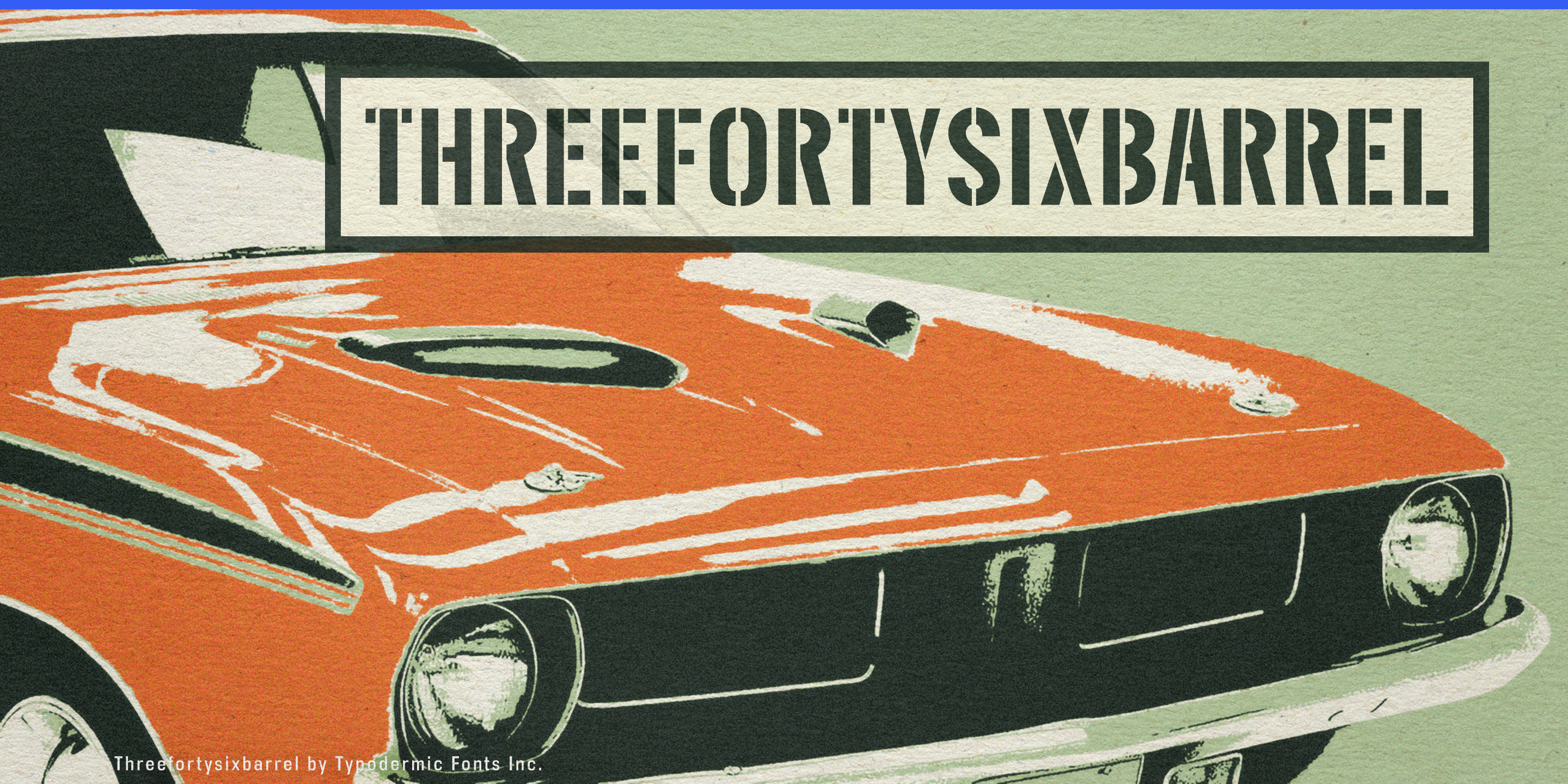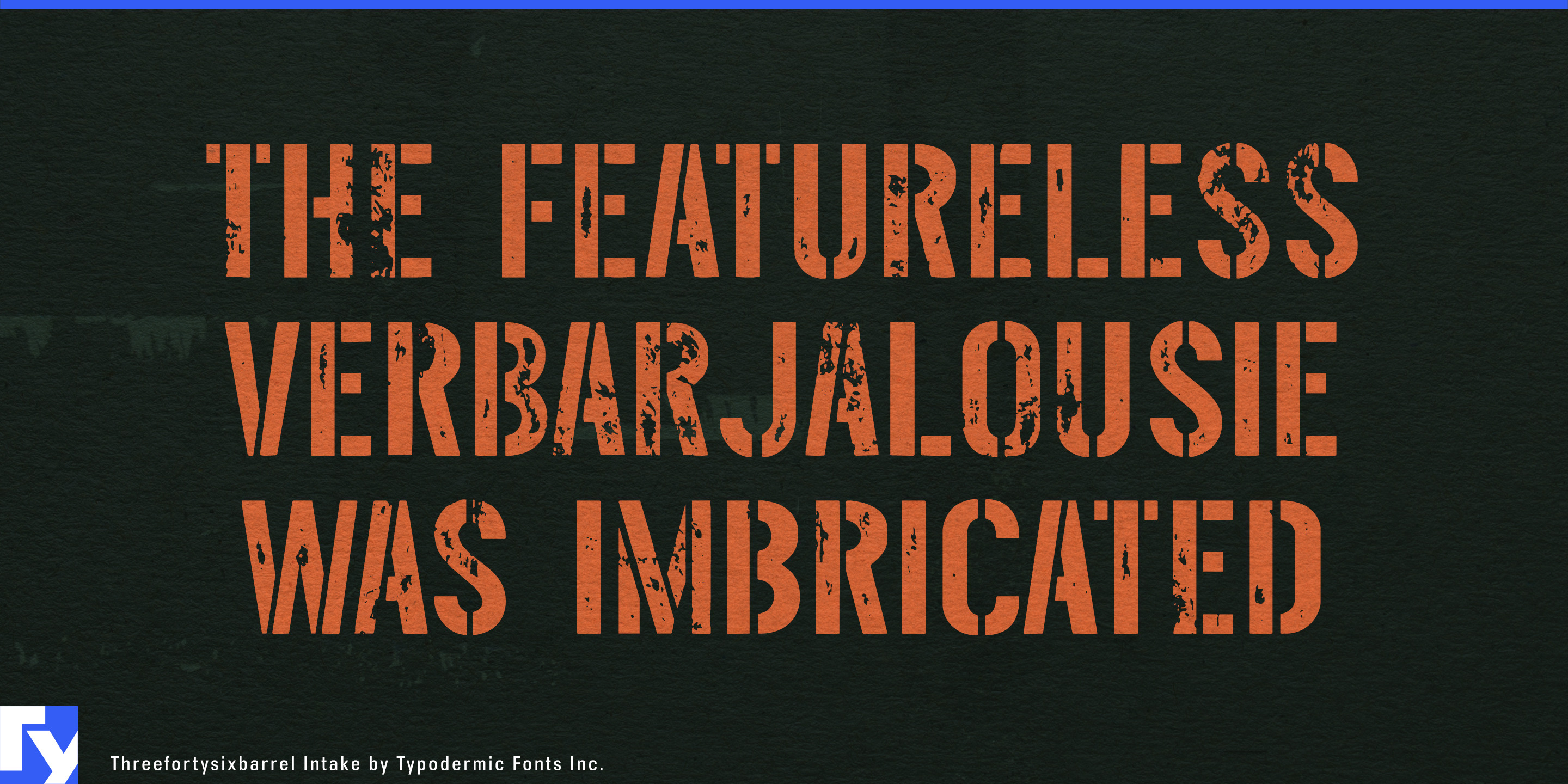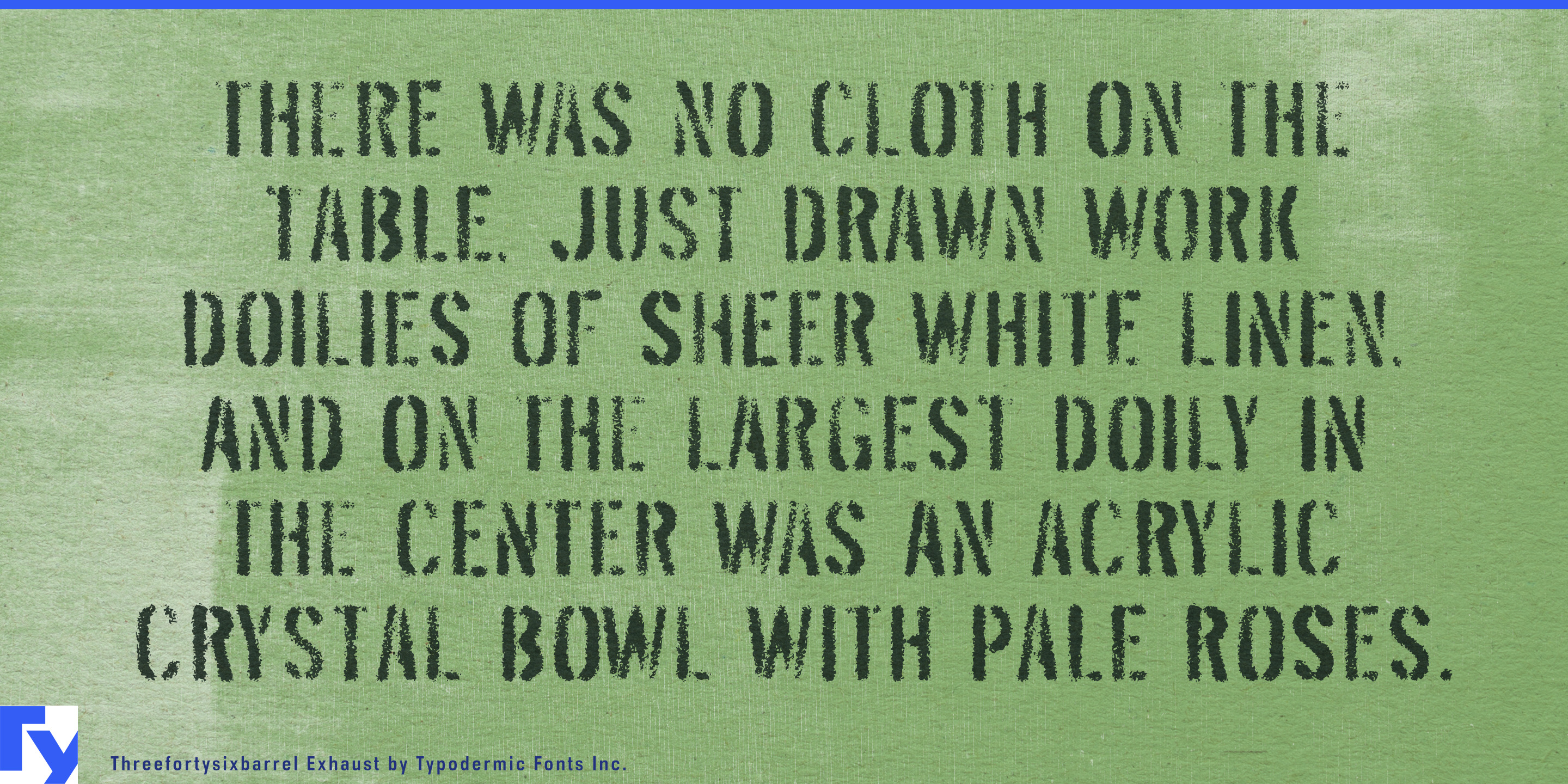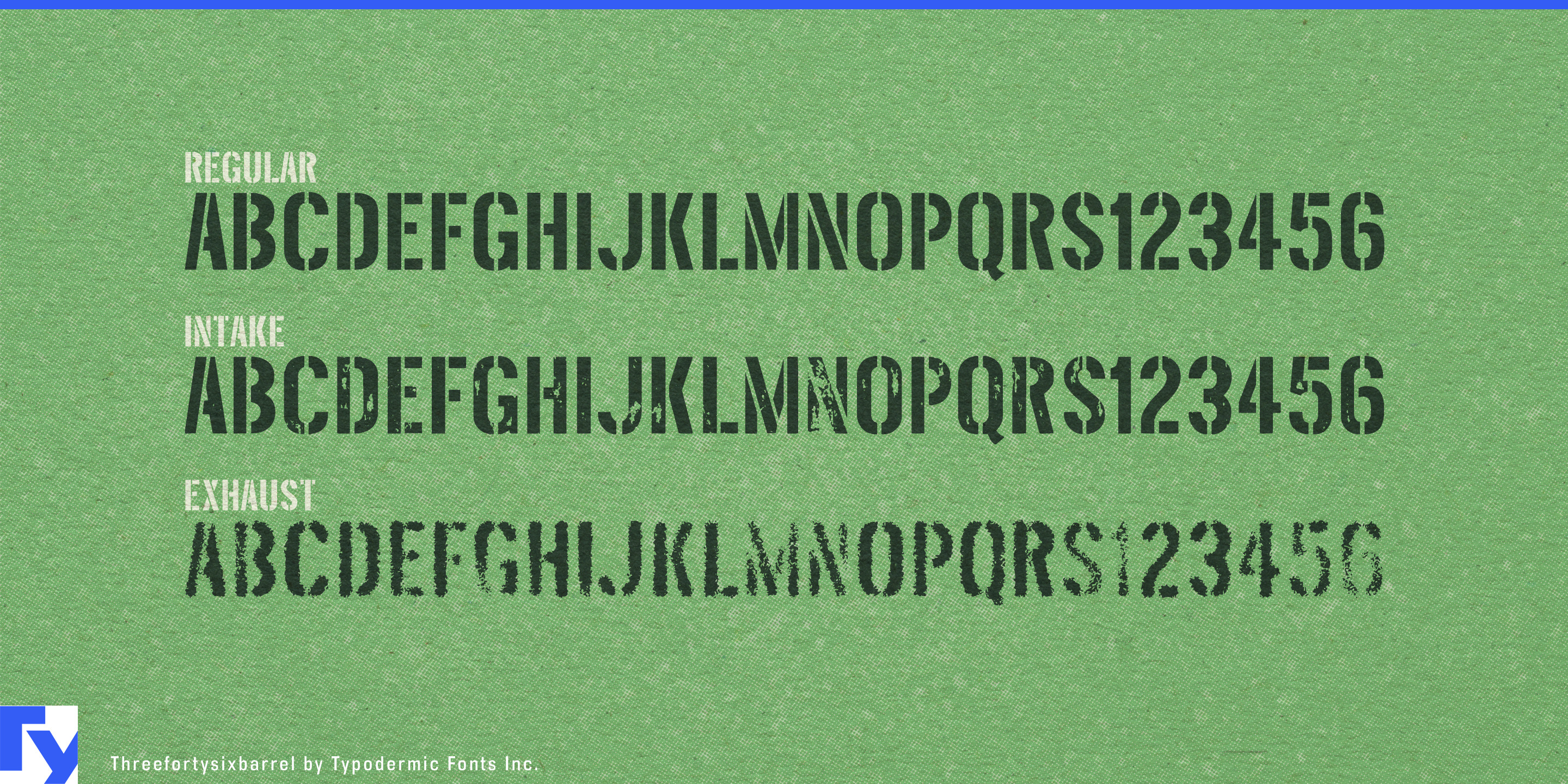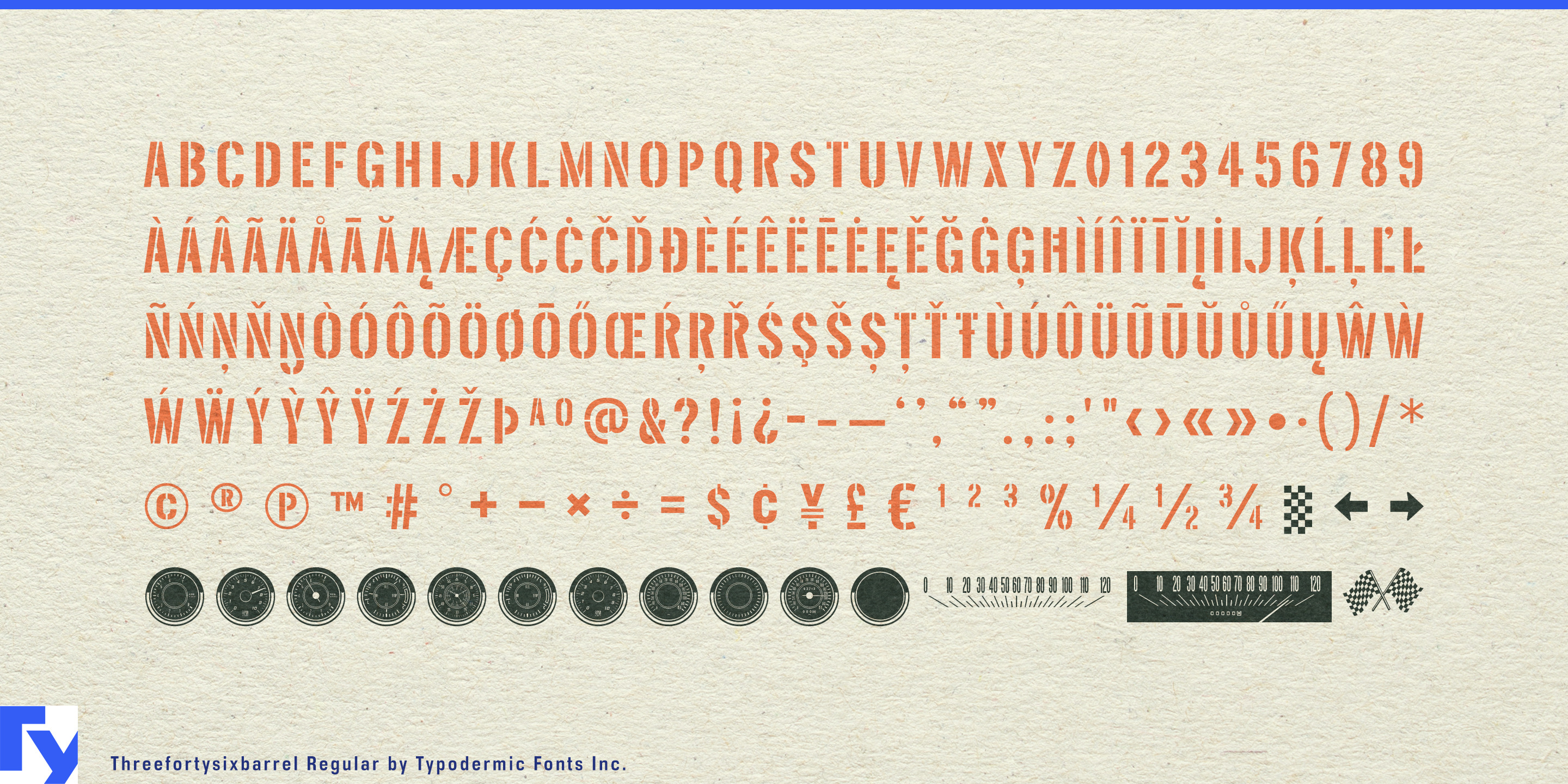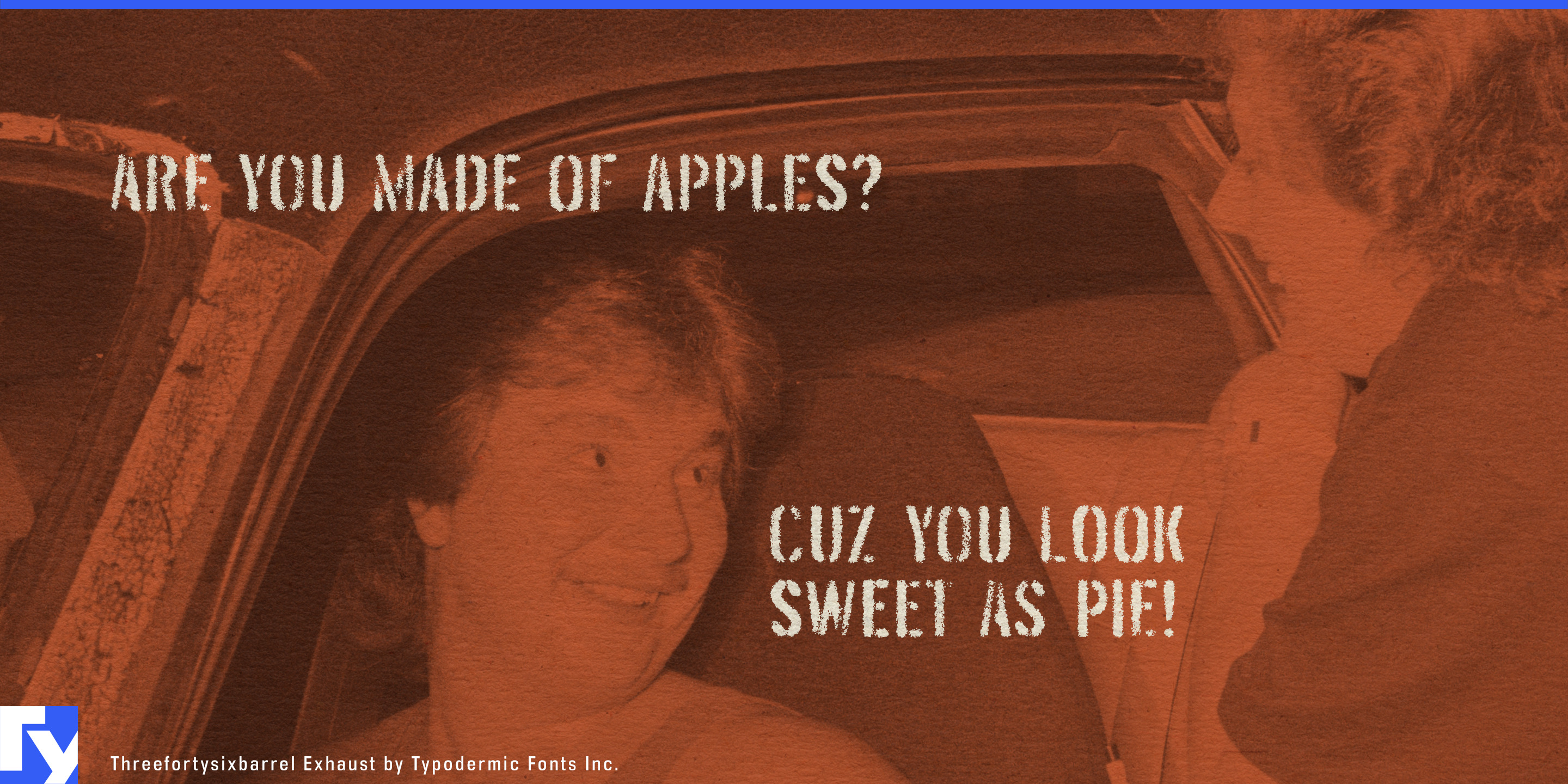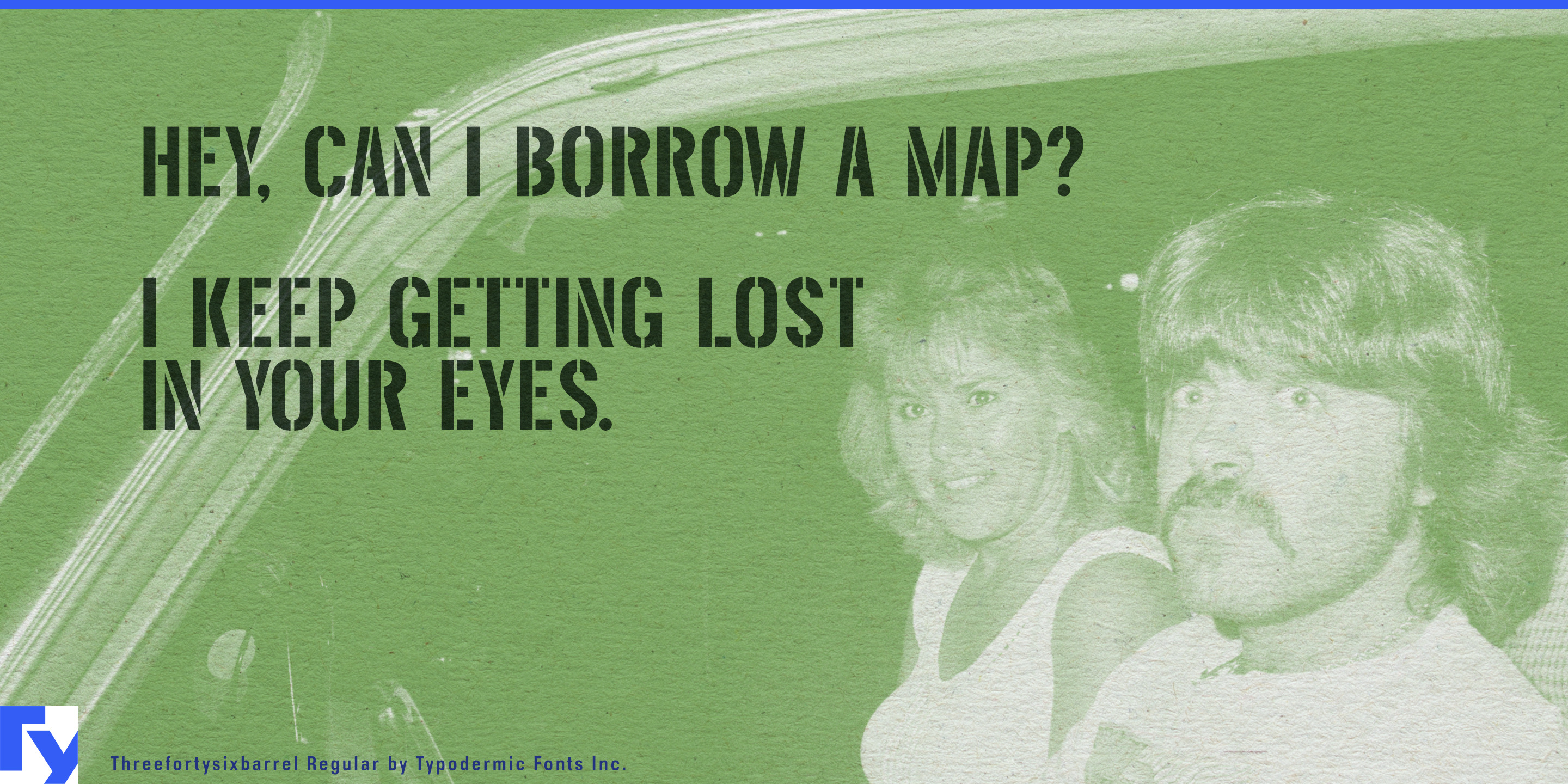
Threefortysixbarrel
Performance hardware often needs lettering that looks as though it belongs on machinery. A clean industrial sans can feel detached from the engine bay, while conventional stencils often bring military baggage that has little to do with cars. Threefortysixbarrel comes from a different source: early-1970s under-hood markings, translated into compact all-caps lettering that feels factory-applied, mechanical and automotive without resembling an ammunition crate.
That makes it especially useful for restomod and performance parts. Crate engines, EFI conversions, intake systems, performance exhausts, ignition packages, cooling systems, brake conversions, suspension kits and retrofit gauges all need product-series names that can look at home both on the carton and beside the machinery itself. Threefortysixbarrel can handle engine-bay decals, component markings, installation-manual covers, trade-show graphics and product photography callouts without pretending to reproduce a specific historical factory label.
Its three styles let the same identity move through different levels of wear. Regular suits newly manufactured components, clean packaging and technical presentations. Intake introduces moderate degradation for workshop photography, heritage campaigns and race-event graphics. Exhaust pushes further into teardown imagery, long-serving machinery and project vehicles that have accumulated some history.
Performance engine builders, dyno shops, transmission specialists and fabrication businesses provide another natural setting. Engine-series names, dyno-cell signage, build-sheet headings, crate markings, shop-bay identifiers and vehicle graphics benefit from compact lettering that can accommodate technical names without resorting to generic block type.
Truck and off-road hardware extends the same idea to suspension packages, skid plates, steel bumpers, differential covers, auxiliary fuel systems, exhaust components and underbody protection. Threefortysixbarrel gives these products a rugged equipment language without automatically pushing the brand toward tactical styling.
The same distinction becomes useful as older performance vehicles adopt new drivetrains. Electric restomod systems, conversion packages, battery enclosures, controller housings and retrofit instrumentation can acknowledge new engineering while remaining visually connected to the hot-rodding and restoration world around them.
Historic drag racing, vintage motorsport and automotive media provide further roles for class identifiers, paddock signs, pit boards, project names and technical chapter cards. Threefortysixbarrel works best where a few words need to behave like factory or workshop markings, with clean and progressively worn styles carrying the same automotive voice from a newly manufactured part to the shop floor, race paddock or well-used machine.